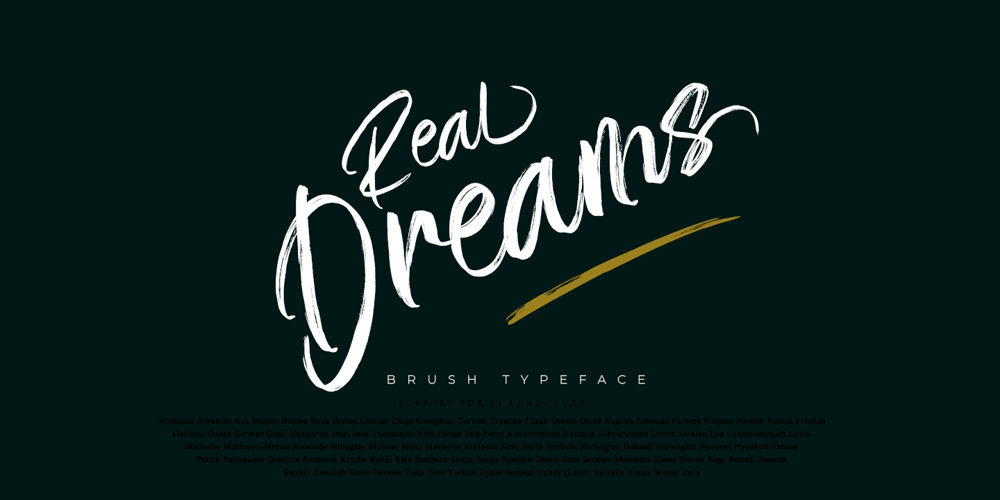
Real Dreams Font Family was designed by Gie Studio and published by Gie Studio. Real Dreams contains 1 styles and family package options. Hello EverybodyHurry up and take handwritten works with natural scribble effects to design your product to make it look more memorable & attract everyone’s first glance !Real Dreams is a stylish and brushed handwritten font. This gentle font will look gorgeous on a variety of design ideas. It will add a joyful and romantic touch to each of your projects!Features:– Swash Collection– Unique Ligatures– Special Underline– Multilingual Support 83 Country– PUA Encoded– Numerals and PunctuationLanguage Support :Afrikaans, Albanian, Asu, Basque, Bemba, Bena, Breton, Catalan, Chiga, Colognian, Cornish, Croatian, Czech, Danish, Dutch, Embu, English, Esperanto, Estonian, Faroese, Filipino, Finnish, French, Friulian, Galician, Ganda, German, Gusii, Hungarian, Inari Sami, Indonesian, Irish, Italian, Jola-Fonyi, Kabuverdianu, Kalaallisut, Kalenjin, Kamba, Kikuyu, Kinyarwanda, Latvian, Lithuanian, Lower Sorbian, Luo, Luxembourgish, Luyia, Machame, Makhuwa-Meetto, Makonde, Malagasy, Maltese, Manx, Meru, Morisyen, Northern Sami, North Ndebele, Norwegian Bokmål, Norwegian Nynorsk, Nyankole, Oromo, Polish, Portuguese, Quechua, Romansh, Rombo, Rundi, Rwa, Samburu, Sango, Sangu, Scottish Gaelic, Sena, Serbian, Shambala, Shona, Slovak, Soga, Somali, Spanish, Swahili, Swedish, Swiss German, Tait, Teso, Turkish, Upper Sorbian, Uzbek (Latin), Volapük, Vunjo, Walser, Zulu.Thank you and happy design !